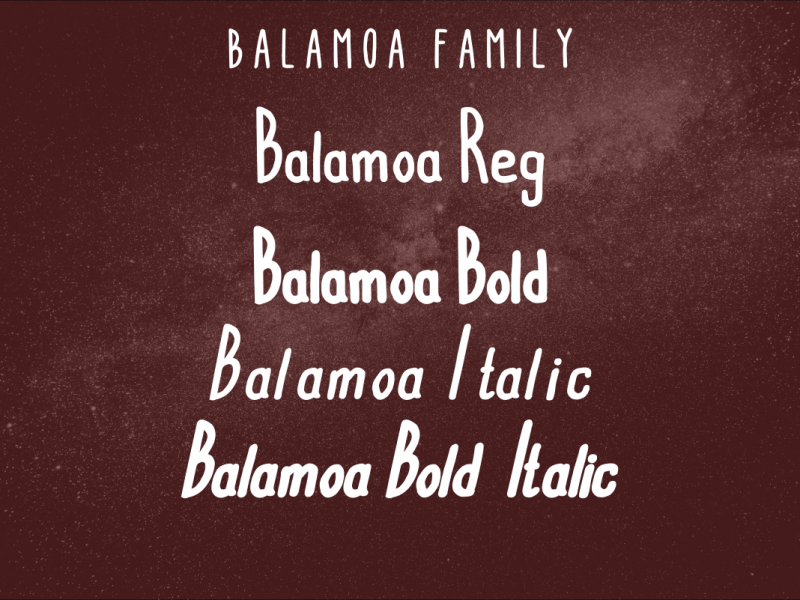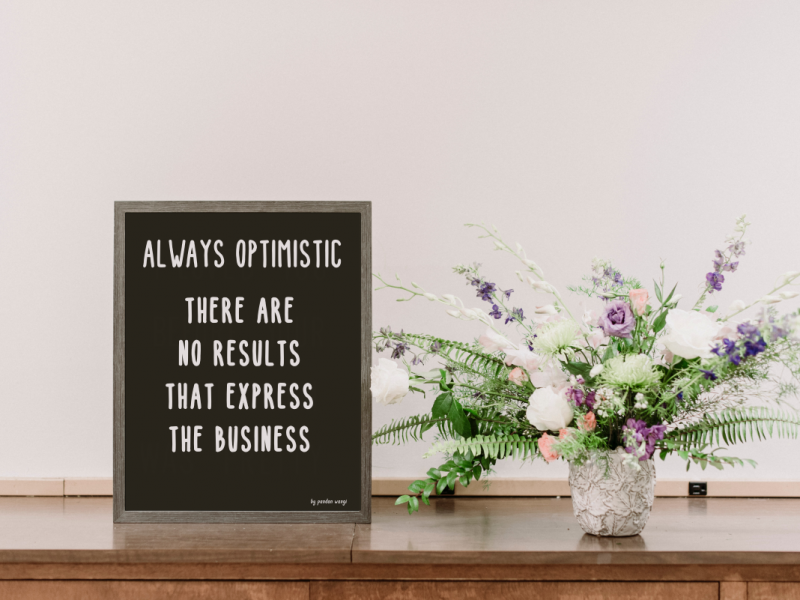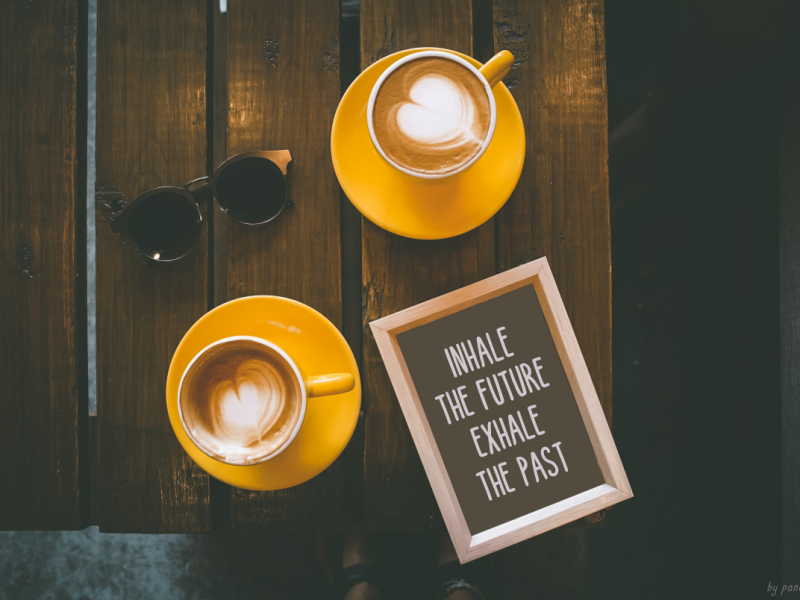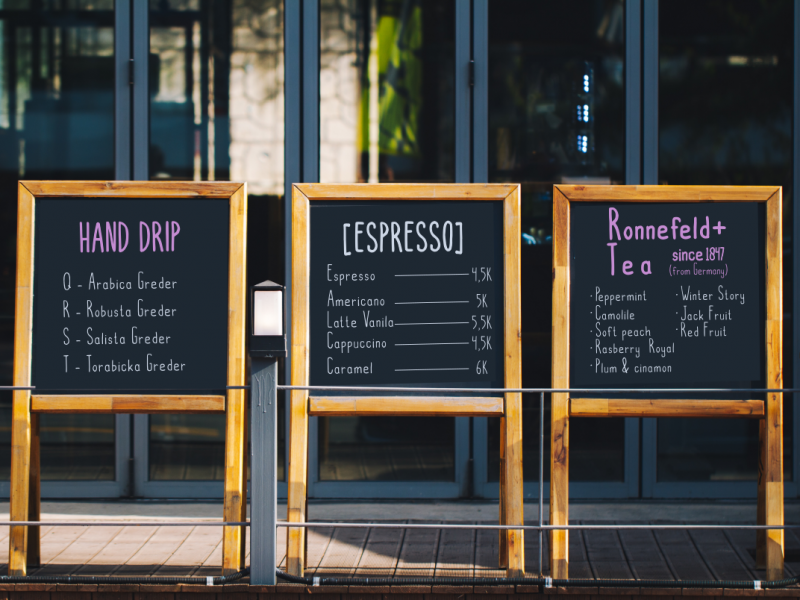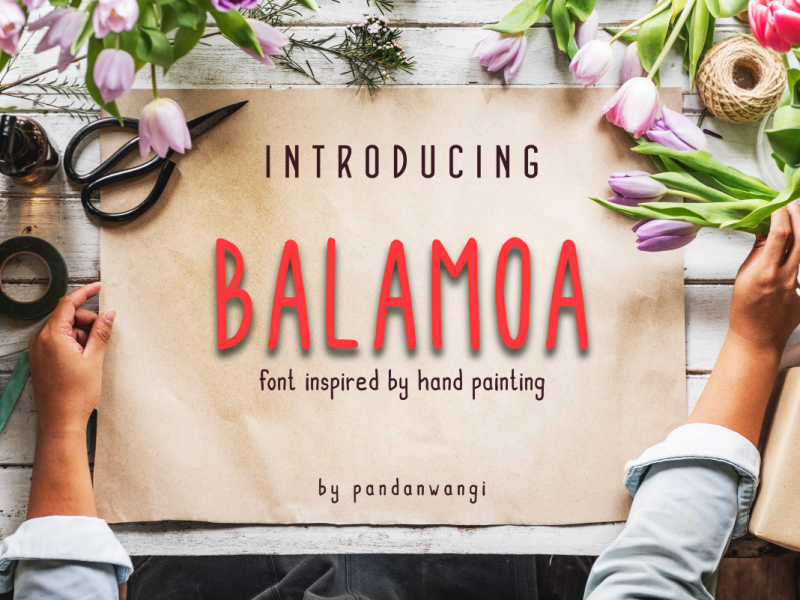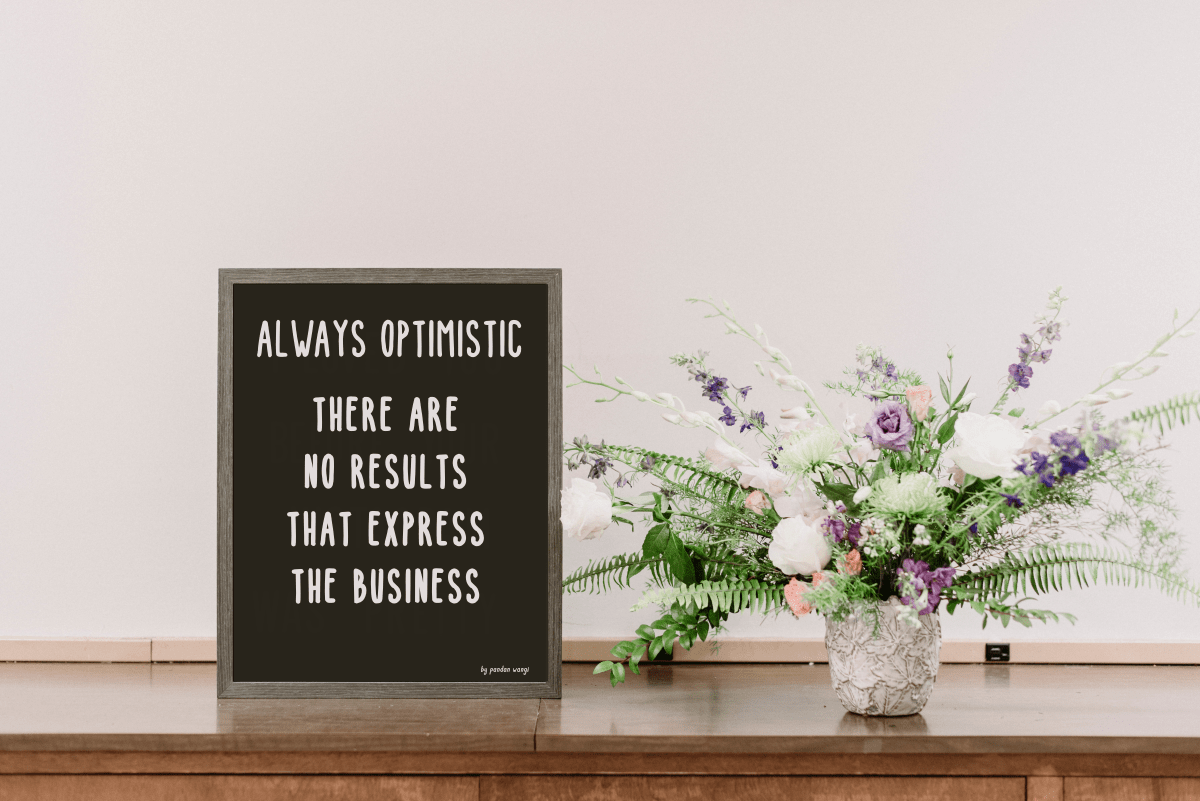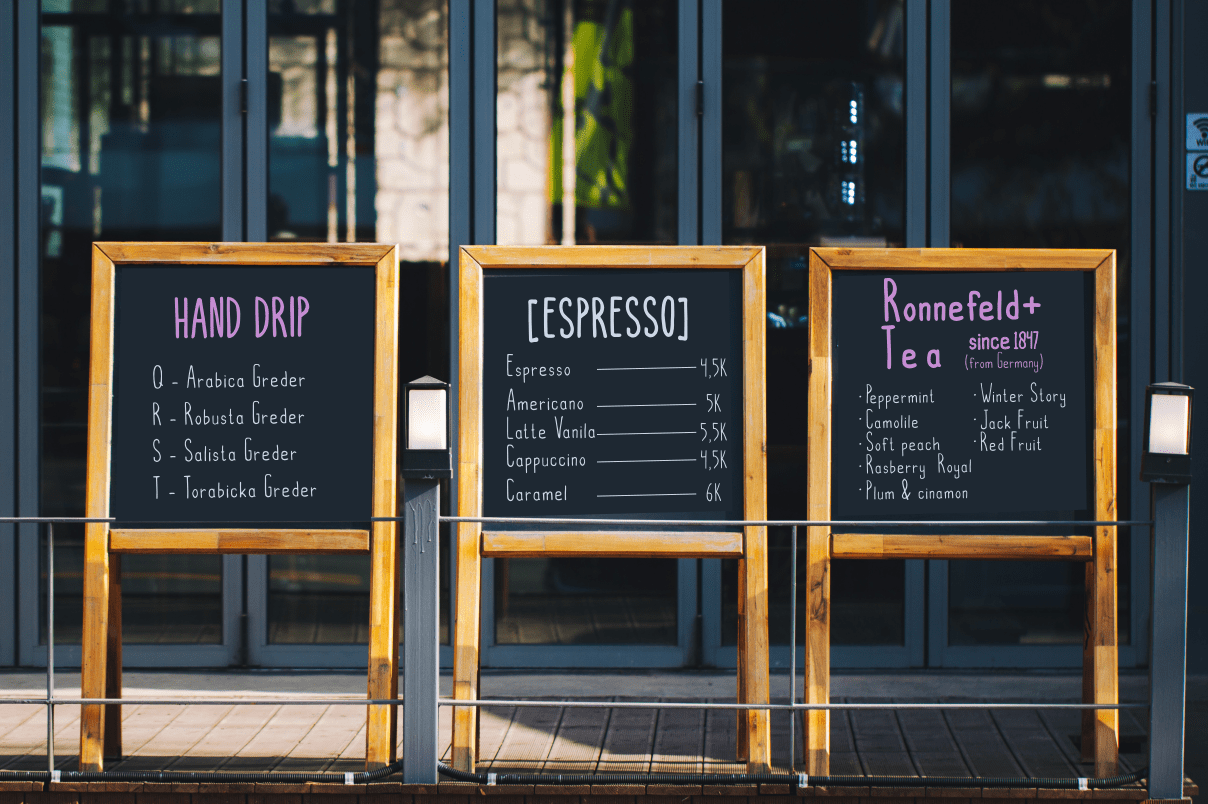
Balamoa Font Family
Introducing Balamoa family is a fun hand painted family. It includes 4 styles which can be paired perfectly together. Regular, Italic, Bold, and Bold Italic
The Balamoa can be used for branding, product designs, logos, book content, cafe or coffee shop menu lists, quotes, watermarks, and much more!